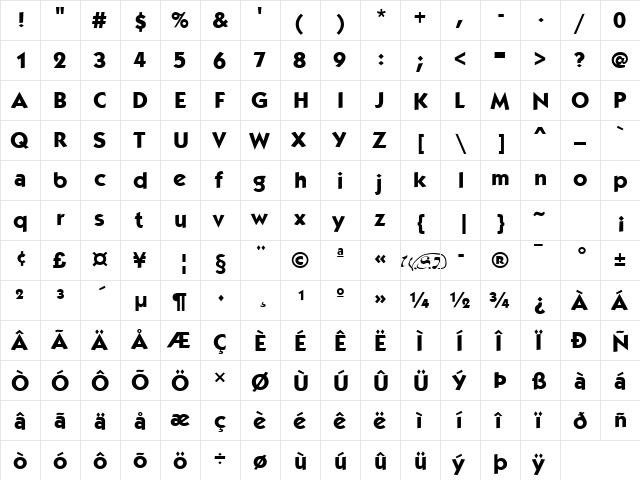
Kabob Extrabold Regular
Design Context for Kabob Extrabold Typeface
Kabob Extrabold offers clean, dependable letterforms without strong stylistic allegiance, making it a practical choice for designers who need flexibility. Its bold stroke weight gives it real presence on the page.